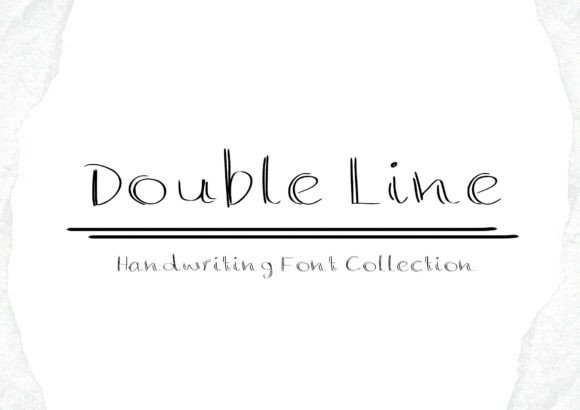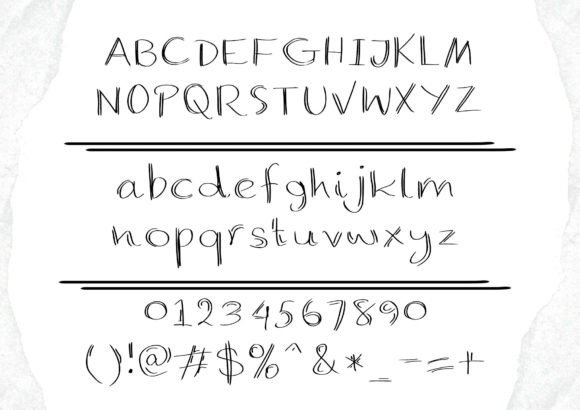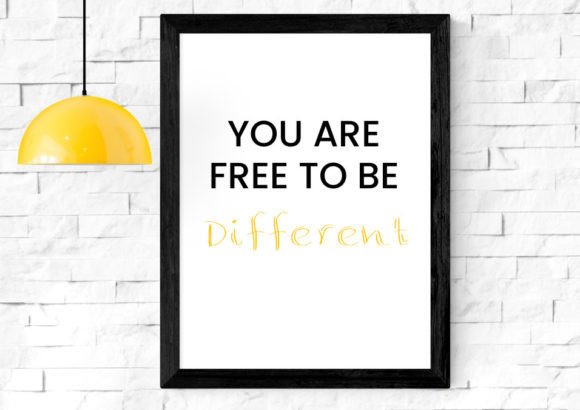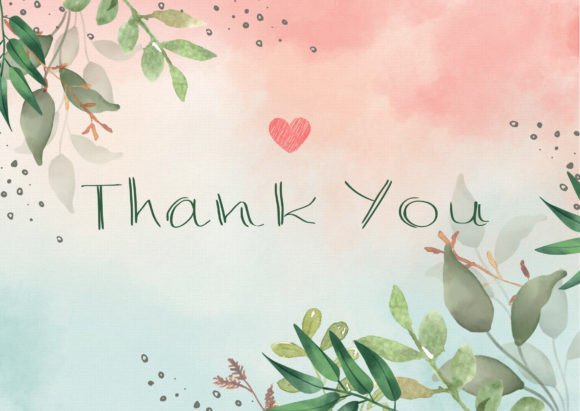
Double Line Font
About Double Line Font
Double Line is a playful and friendly handwritten font that exudes a fun and approachable vibe. Its versatility is a key strength, making it a suitable choice for a diverse range of design ideas. Whether you’re working on branding, posters, social media graphics, or any other creative project, Double Line’s casual and friendly style adds a touch of charm that resonates across various design contexts.
The fun and handwritten nature of Double Line brings a sense of authenticity and warmth to your designs. Its playful letterforms create a visual language that is engaging and inviting, making it well-suited for projects that aim to connect with audiences in a friendly manner.
In branding, Double Line adds a friendly and approachable touch, making your brand identity more relatable. The font’s versatility ensures that it can adapt to different industries and themes, maintaining a consistent and inviting look.
For posters and social media graphics, Double Line injects a dynamic and lively element, capturing attention and conveying a positive vibe. Its adaptability allows it to shine in a variety of visual content, making your designs stand out with a casual yet appealing style.
The incredible versatility of Double Line opens up creative possibilities for designers. Whether you’re working on personal projects or professional endeavors, this font serves as a versatile tool for infusing a touch of friendliness and playfulness into your designs.
In summary, Double Line is more than just a font; it’s a design asset that brings a fun and friendly atmosphere to your creative projects. Its versatility makes it suitable for a wide range of design ideas, ensuring that your creations resonate with audiences through a casual and inviting style.